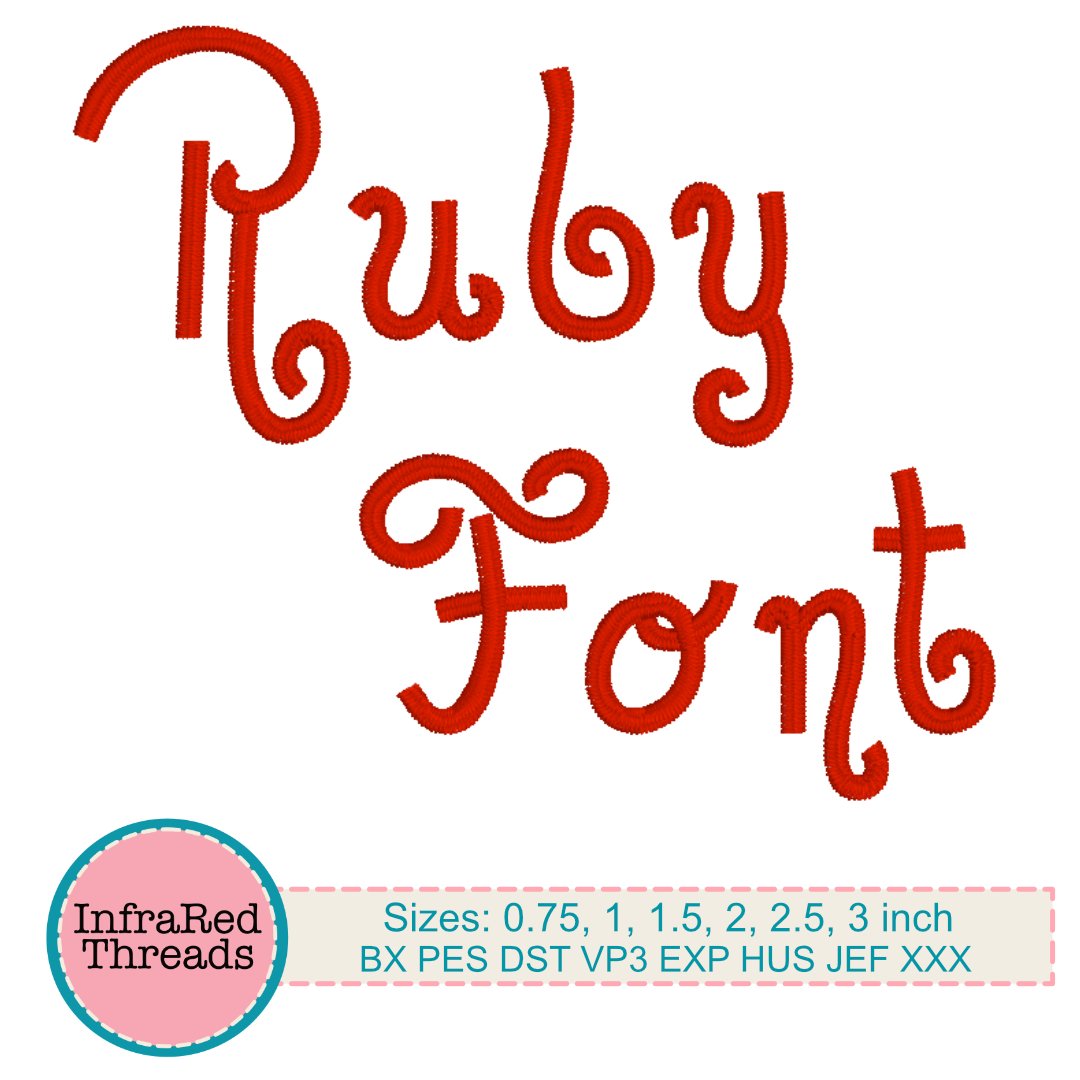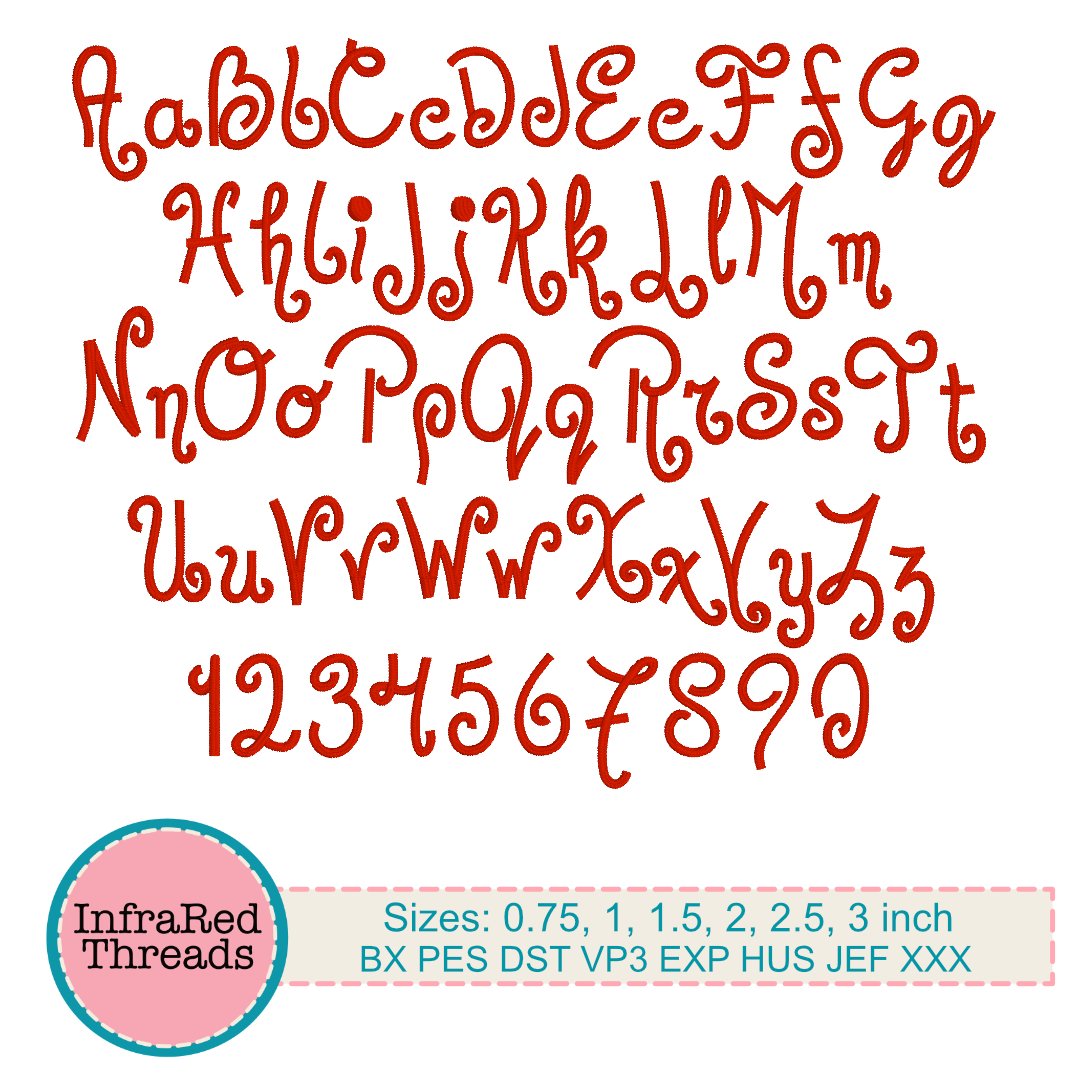
Ruby Embroidery Font – Fun, Quirky & Curvy Letters in 6 Sizes
Add a splash of personality to your embroidery projects with the Ruby Embroidery Font. This playful and curvy font features a quirky style that’s perfect for adding charm to names, quotes, or custom messages. Whether you’re personalizing gifts, crafting decor, or creating items for sale, Ruby’s unique look will make your stitched lettering stand out.
The Ruby font is digitized for smooth stitching and includes six popular sizes, making it ideal for everything from small tags to bold statement pieces. Suitable for embroidery enthusiasts and professional crafters alike.